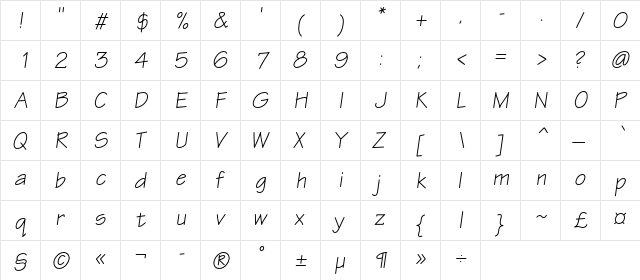
EskizTwoC Italic
Design Context for EskizTwoC Typeface
EskizTwoC takes a measured approach to typography — its balanced proportions and neutral character make it a reliable workhorse for both digital and print work. The dynamic lean of this cut emphasises speed and emphasis in any layout.
Pro Tip: Use EskizTwoC for emphasis, pull quotes, and subheadings where its slanted energy can add rhythm to the layout.